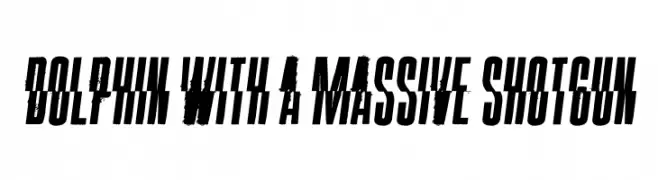
A sleek, modern, light italic font with a streamlined and professional appearance.
A modern, geometric sans-serif font with clean lines and uniform strokes.
A sleek, modern, light italic font with a streamlined and professional appearance.
A distressed, textured font with a rugged, vintage aesthetic.
A modern, angular font with elongated letterforms and a dynamic slant.
A playful, handwritten font with smooth, rounded edges and a casual style.
An elegant and flowing script font with sophisticated cursive letters.
A lively, expressive script font with a handwritten feel and medium contrast.
An elegant script font with flowing, cursive letters and ornate details.
A dynamic and fluid script font with elegant curves and a handwritten feel.
A dynamic and fluid script font with smooth, flowing lines and elegant curves.
A bold, expressive brush-style font with dynamic, hand-drawn strokes.
A modern, elegant script font with flowing cursive style.
A modern, elegant script font with flowing, graceful curves.
A casual, handwritten-style font with fluid, connected strokes.
A bold, handwritten font with dynamic, flowing strokes.
An elegant script font with flowing lines and intricate swashes.
A romantic and elegant script font with graceful loops and swashes.
A bold, elegant script font with flowing, cursive letterforms.
A decorative font with intricate geometric patterns and optical illusion effects.
A bold, expressive script font with a hand-drawn, connected style.
A delicate and flowing script font with elegant, thin strokes.
An elegant script font with flowing, ornate cursive letters.
A modern italic font with clean lines and smooth curves.
A clean, modern sans-serif font with uniform stroke width and excellent readability.
A modern, thin, and elegant font with high contrast and balanced spacing.
A modern, thin italic font with elegant strokes and a dynamic style.
A dynamic and expressive script font with bold, cursive letterforms.
A bold, geometric font with sharp angles and a modern, edgy style.
A bold, angular font with geometric shapes and a striking, edgy design.